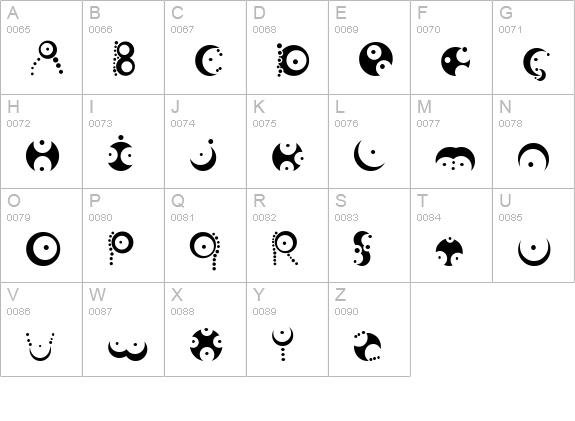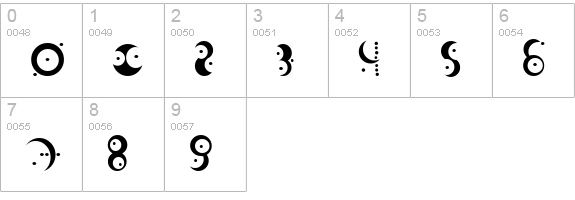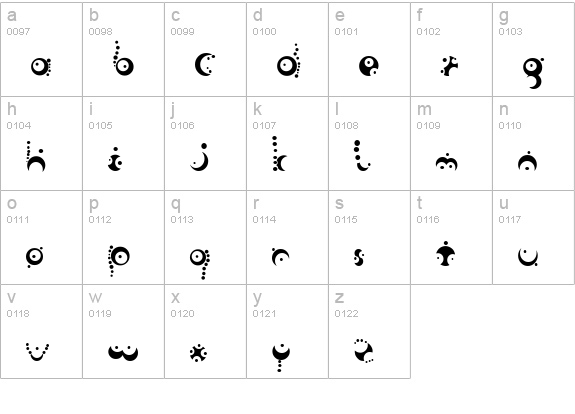
Fish in the bathroom Font Details
Fish in the bathroom font is a whimsical and creative typeface that brings a touch of playfulness to any design project. With its quirky shapes and unique style, this font is sure to stand out and make a statement. Whether you're working on a children's book, a fun poster, or a quirky logo, Fish in the bathroom font is the perfect choice to add a splash of fun. This font is freely available to download at FontsMarket.com, where you can easily access it and start using it in your projects right away. Don't miss out on this free and delightful font that will bring a smile to your audience's faces. Get Fish in the bathroom font now and let your creativity swim freely!